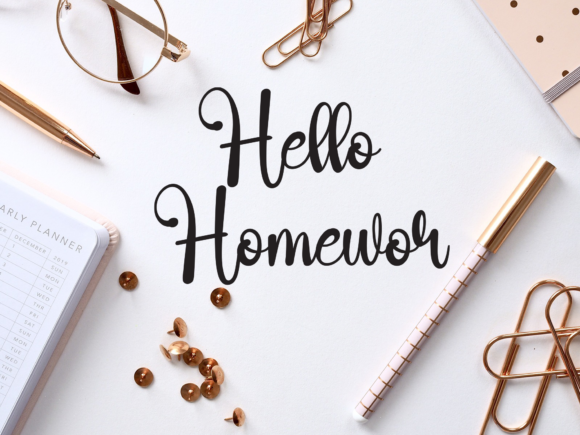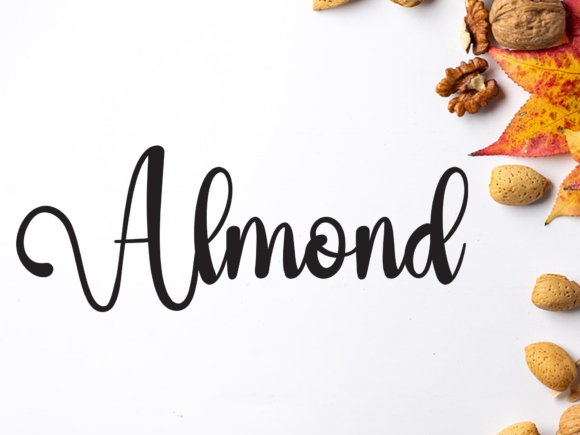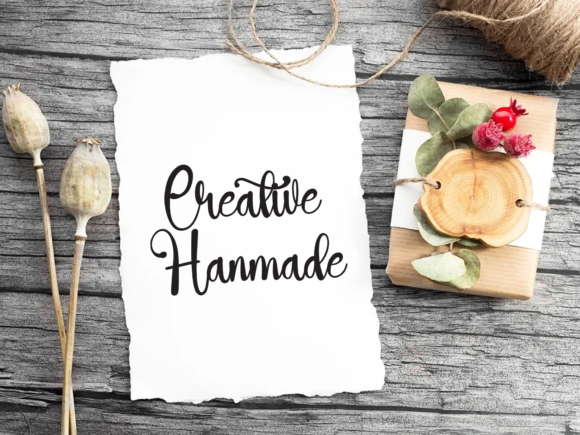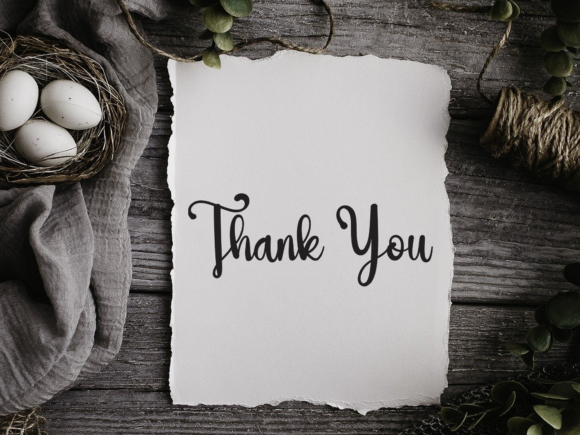
Introducing Butterfly Font: A Delicate and Versatile Handwritten Font
Butterfly is a beautiful, handwritten font that has been crafted with great care to exceed all expectations. Its delicate and versatile nature makes it an ideal choice for designers and crafters looking for a font that can be used across various products and projects. In this article, we’ll dive deeper into the world of Butterfly Font, exploring its features, uses, and benefits.
What is Butterfly Font?
Butterfly Font is a carefully designed, handwritten font that boasts a unique and elegant style. Its delicate curves and lines create a sense of movement and fluidity, making it perfect for projects that require a touch of sophistication and whimsy. The font is highly legible, ensuring that your text remains clear and easy to read, even at smaller sizes.
Features of Butterfly Font
- Delicate and Versatile: Butterfly Font is designed to be versatile, making it suitable for a wide range of projects, from elegant wedding invitations to playful craft tutorials.
- Handwritten with Care: The font is carefully crafted to mimic the fluidity and imperfections of handwritten text, giving it a personal and unique touch.
- Highly Legible: The font’s clear and concise design ensures that your text remains easy to read, even at smaller sizes.
- Multilingual Support: Butterfly Font supports multiple languages, making it a great choice for international projects.
Uses of Butterfly Font
Butterfly Font can be used for a variety of projects, including:
- Wedding Invitations and Stationery: Add a touch of elegance and sophistication to your wedding invitations, save-the-dates, and other stationery.
- Crafting and DIY Projects: Use Butterfly Font to create beautiful and eye-catching titles, headings, and descriptions for your craft tutorials, patterns, and product labels.
- Branding and Packaging: The font’s versatility makes it suitable for branding and packaging projects, such as logos, labels, and product packaging.
- Digital and Print Media: Use Butterfly Font in your digital and print media projects, including brochures, flyers, posters, and social media graphics.
Benefits of Using Butterfly Font
- Unique and Eye-Catching: Butterfly Font adds a touch of elegance and whimsy to your projects, making them stand out from the crowd.
- Time-Saving: The font’s versatility and legibility save you time and effort, as you can use it across multiple projects and applications.
- Customizable: Butterfly Font can be easily customized to fit your project’s specific needs, making it a great choice for designers and crafters.
Tips for Using Butterfly Font
- Pair it with Other Fonts: Experiment with pairing Butterfly Font with other fonts to create a unique and visually appealing combination.
- Adjust Font Sizes: Play with different font sizes to create visual hierarchy and add emphasis to your text.
- Use it in Combination with Images: Combine Butterfly Font with beautiful images or illustrations to create stunning visual content.
Butterfly Font is a delicate and versatile handwritten font that is perfect for designers and crafters looking for a unique and elegant font. Its features, uses, and benefits make it an ideal choice for a wide range of projects, from wedding invitations to crafting and DIY projects. With its highly legible design and multilingual support, Butterfly Font is sure to exceed all expectations.